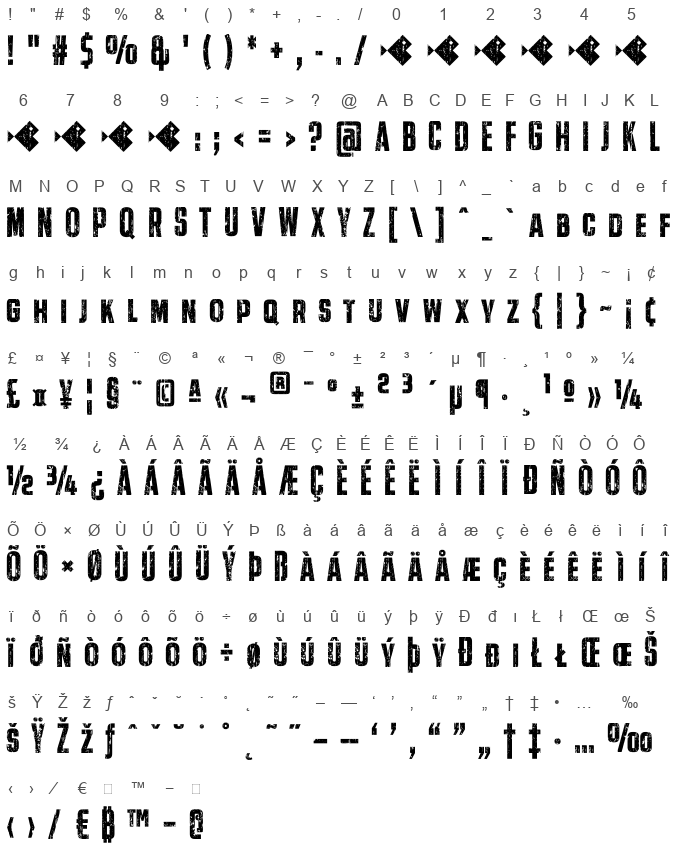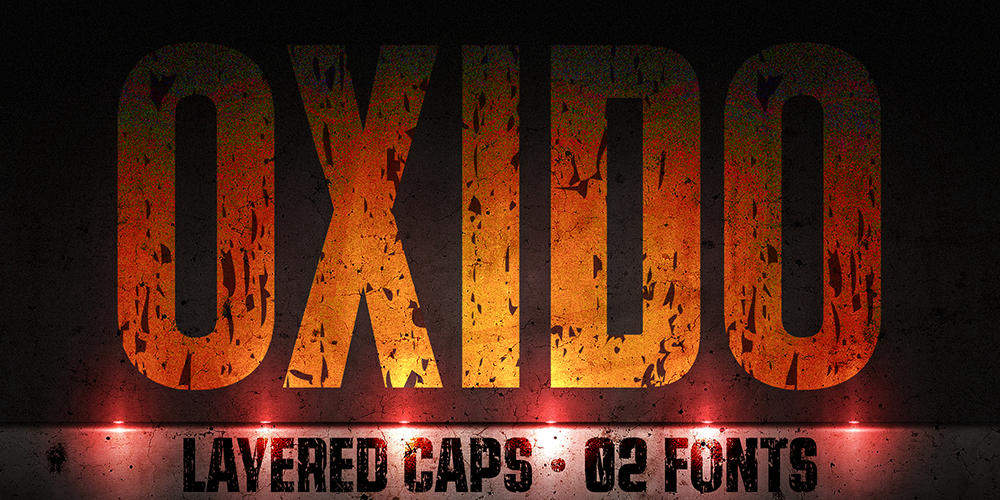
OXIDO ExtBd ExtCond
Copyright (c) deFharo, 2025. All rights reserved.. Version 2.233;DFHA;OXIDO-Eroded;2025;FL842. OXIDO Eroded. Version 2.233. OXIDO-Eroded. Oxido Eroded is a trademark of Fernando Haro. deFharo. Fernando Haro. Oxido was born from a powerful idea: to capture the relentless imprint of time. The roughness of rust, the industrial toughness, and the beauty of imperfection merge into a typeface that doesn't sacrifice legibility or typographic sophistication. It's not just an eroded—or "destroyed"—font; it's a visual testament to resilience and authenticity. Each glyph in Oxido is a metaphor for the passage of time, combining technical rigor with expressive power.. https://defharo.com/fonts/oxido/. https://defharo.com/. Personal use only (FFP)! Leer / Read: https://defharo.com/product-usage-agreement-ffp/ Commercial license. READ: https://defharo.com/terms-and-conditions-commercial-fonts/ Please visit www.defharo.com to buy a commercial license.. OXIDO. Eroded